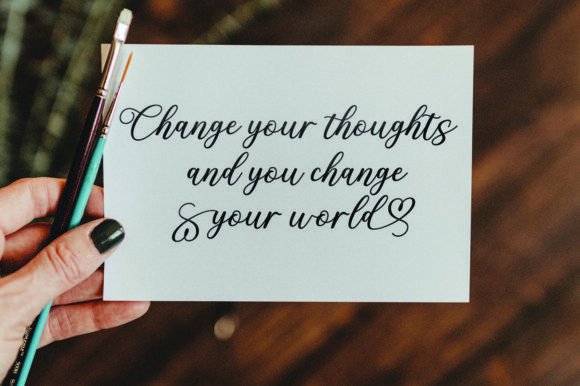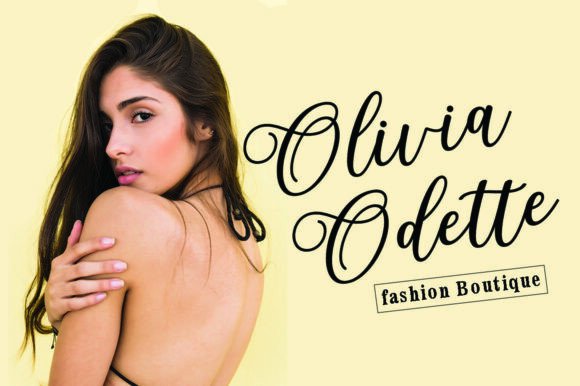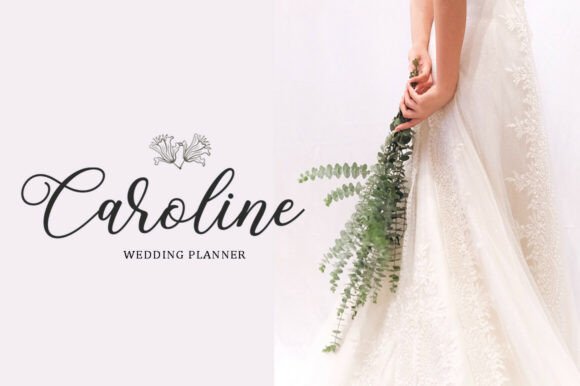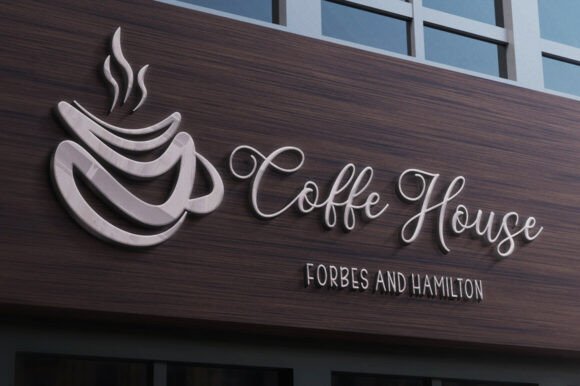
Meet Your New Favorite Script: Arthis Font
There’s something magical about a handwritten letter, don’t you think? The way the words flow effortlessly, the curves and swashes dancing across the page… It’s as if the writer’s personality is coming alive on the paper. And now, with the Arthis Font, you can capture that same essence in your designs.
This charming calligraphy font is designed to bring a touch of romance and elegance to your work. With its natural rhythm and flowing curves, Arthis is perfect for creating a wide range of applications, from wedding stationery to logo design, and from apparel to editorial layouts. And with its rich set of OpenType features, you’ll have endless possibilities to customize the look and feel of your text.
- Character Set: The font features a comprehensive character set, including Latin, Cyrillic, and Greek alphabets, as well as a wide range of punctuation and symbol glyphs.
- Unique Characteristics: Arthis Font features a distinctive, modern design with a blend of geometric and organic elements, making it ideal for use in digital and print media, such as magazines, newspapers, and websites.
Arthis Font Review
I recently had the chance to work with the Arthis font, and overall, I’m quite impressed. Here are some of its standout features:
- ✨ Unique letterforms that add a touch of elegance to any text
- ✨ Beautifully crafted details, from the flowing connections between letters to the subtle flair at the ends
- ✨ Excellent legibility, even at smaller font sizes
However, I did encounter a few limitations:
- ⚠️ Limited language support – it’s primarily designed for Latin-based languages, which might be a concern for projects requiring multilingual support
- ⚠️ Some characters may not render properly on certain platforms or devices, which could lead to inconsistencies in your design
- ⚠️ The font’s style, while unique, might not be to everyone’s taste – it’s definitely a niche font that won’t suit every project
Overall, I think Arthis font is a great choice for designers looking to add a touch of sophistication to their work. While it may not be perfect, its unique features and excellent legibility make it a valuable addition to any font collection. With some careful consideration of its limitations, I’m confident that you can create stunning designs with this font.
Tips for Getting the Most Out of Arthis Font
For the best results, use Arthis Font in conjunction with a clear and concise message. Experiment with different font sizes and styles to create visual interest and emphasis.
Arthis Font is suitable for a variety of design projects, including:
– Headlines and titles
– Body text for marketing materials
– Digital products and interfaces